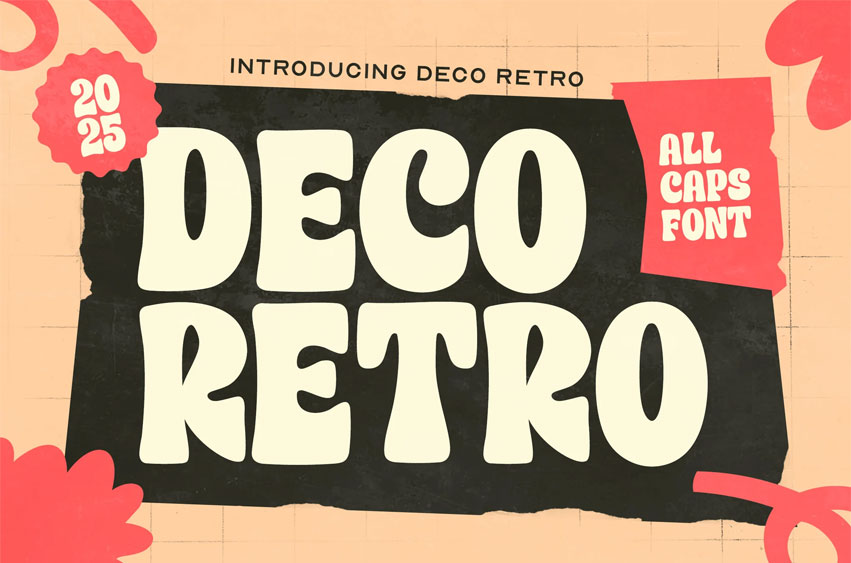
Deco Retro Font is a groovy all caps display font inspired by 60s–70s poster lettering and nostalgic packaging. The rounded, chunky shapes and soft curves give every word a friendly, bubbly feel while still looking bold and eye-catching.
This font is perfect for retro-themed branding, music posters, food and beverage packaging, social media graphics, and any design that needs a warm vintage vibe. Use Deco Retro for big titles, logo lockups, and colorful layouts to instantly transport your project into a fun throwback era. Deco Retro includes uppercase letters, numbers, and punctuation, making it easy to create complete compositions for both print and digital work.
Features: Groovy retro all caps display style Rounded, chunky letterforms with soft curves Numbers and basic punctuation included High impact for headlines, logos, and signage Suitable for both print and digital projects
Suitable For: Retro posters & flyers Vintage branding & logos Food, drink, and snack packaging Music & festival graphics Social media posts & thumbnails Title typography for blogs and websites